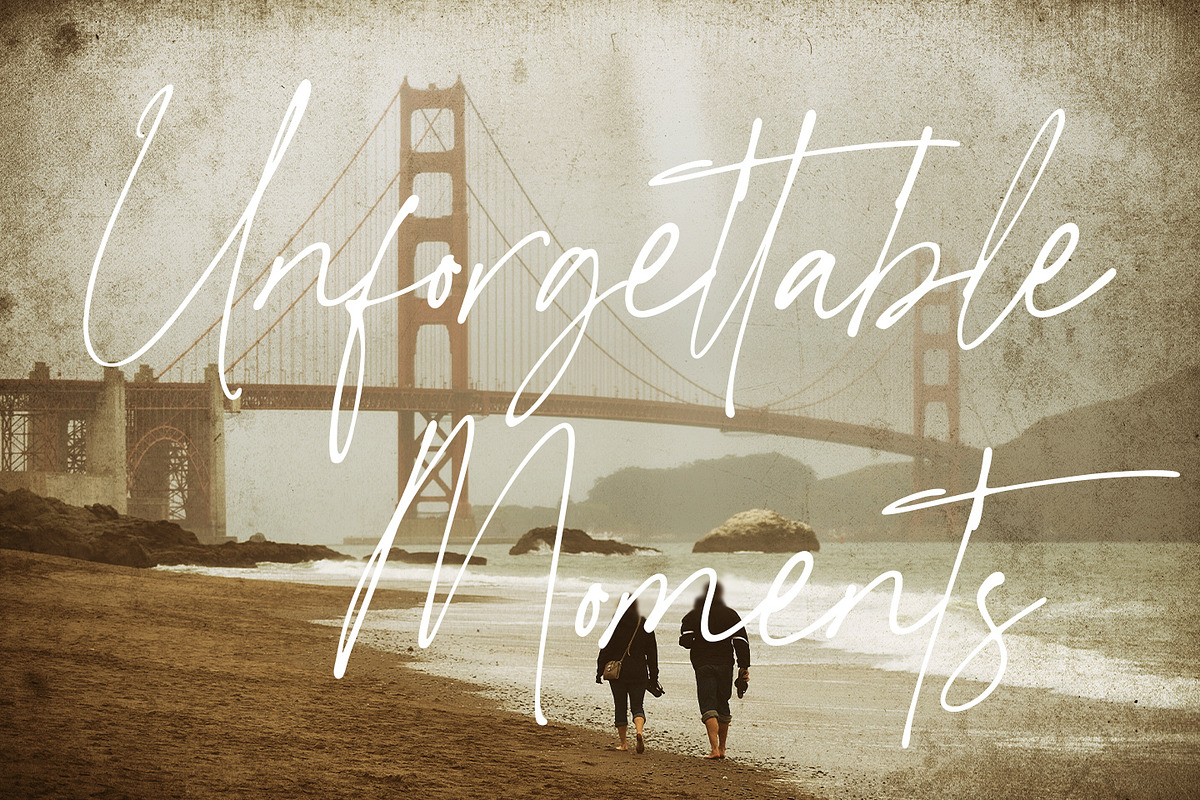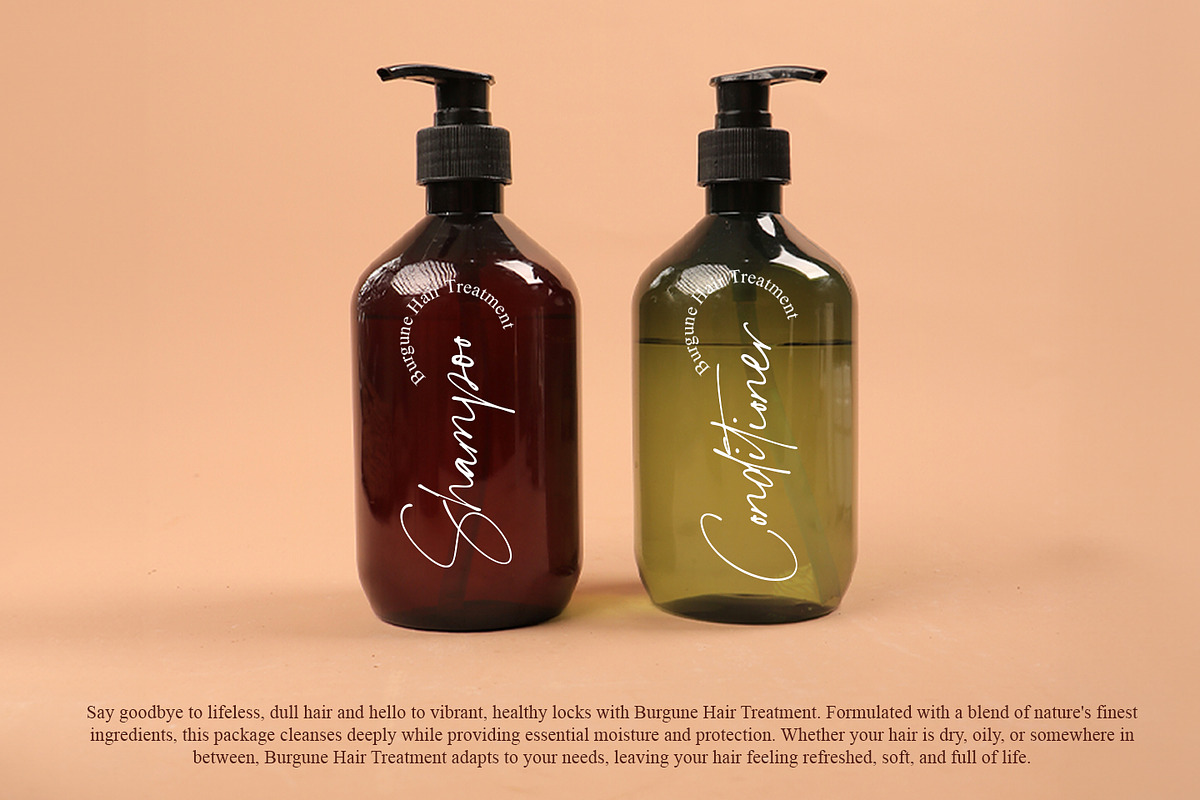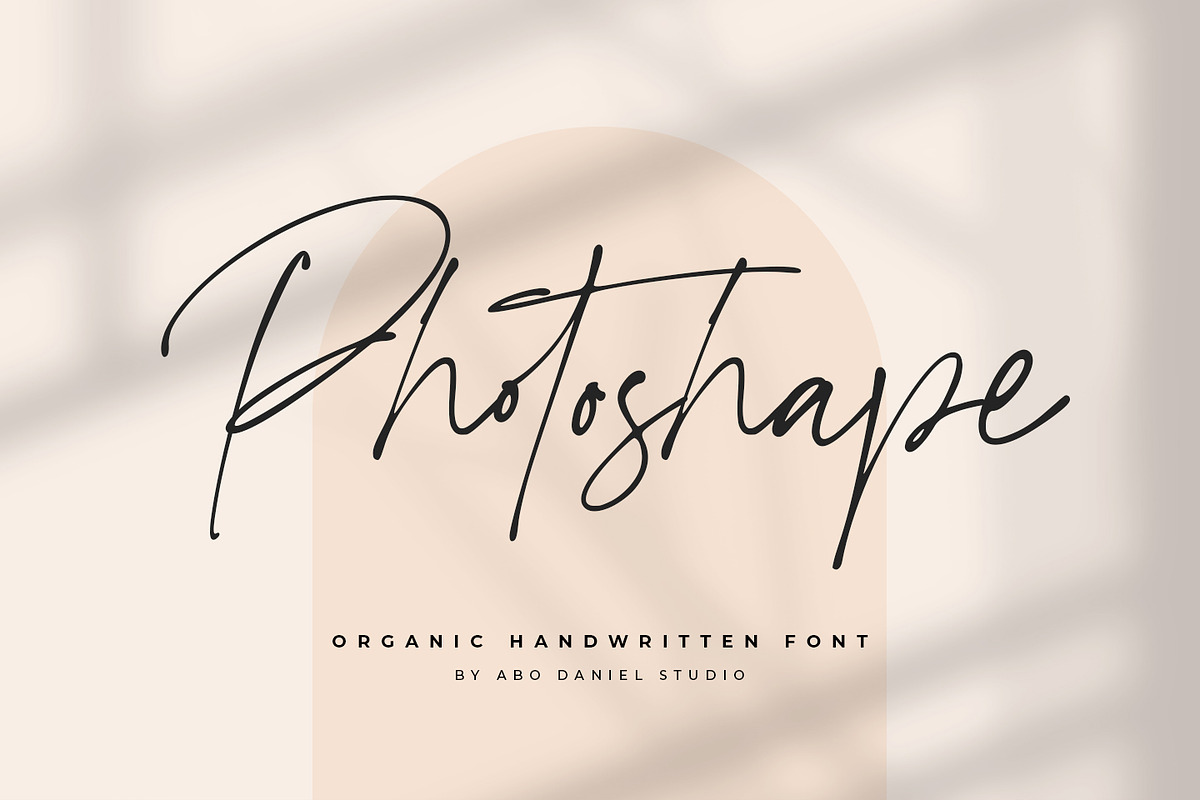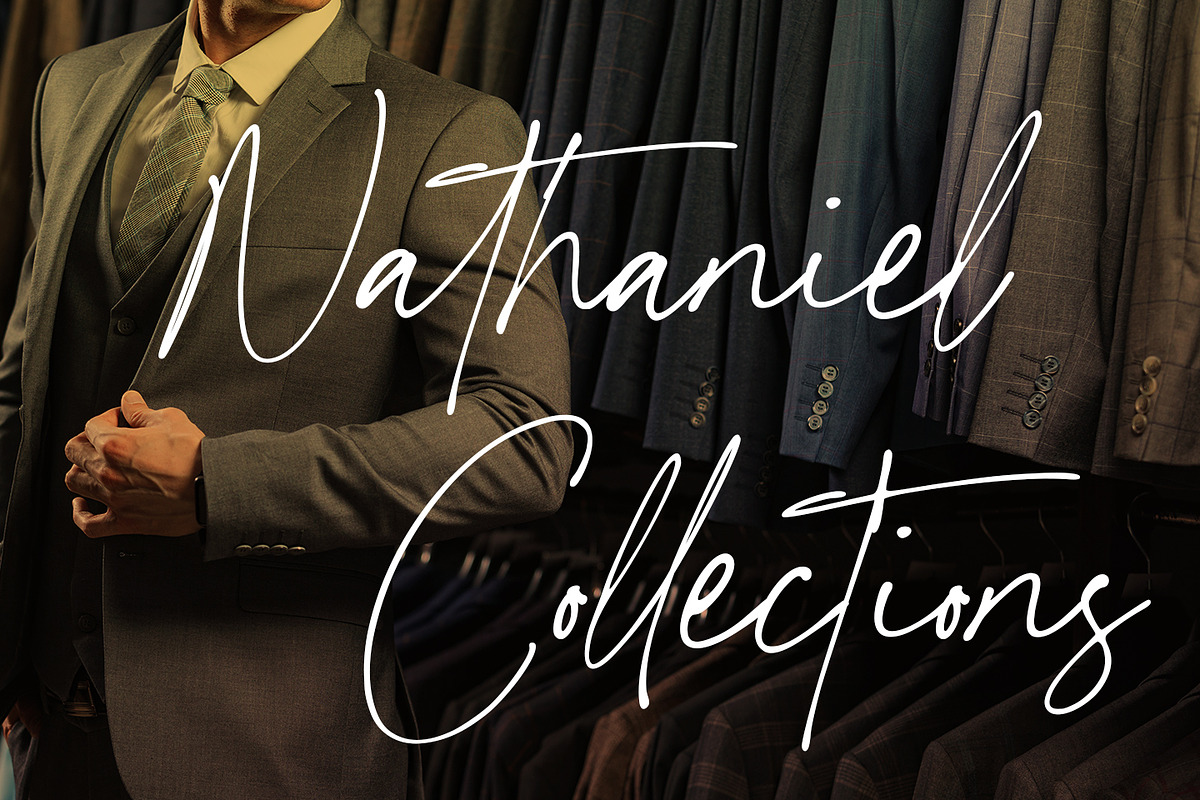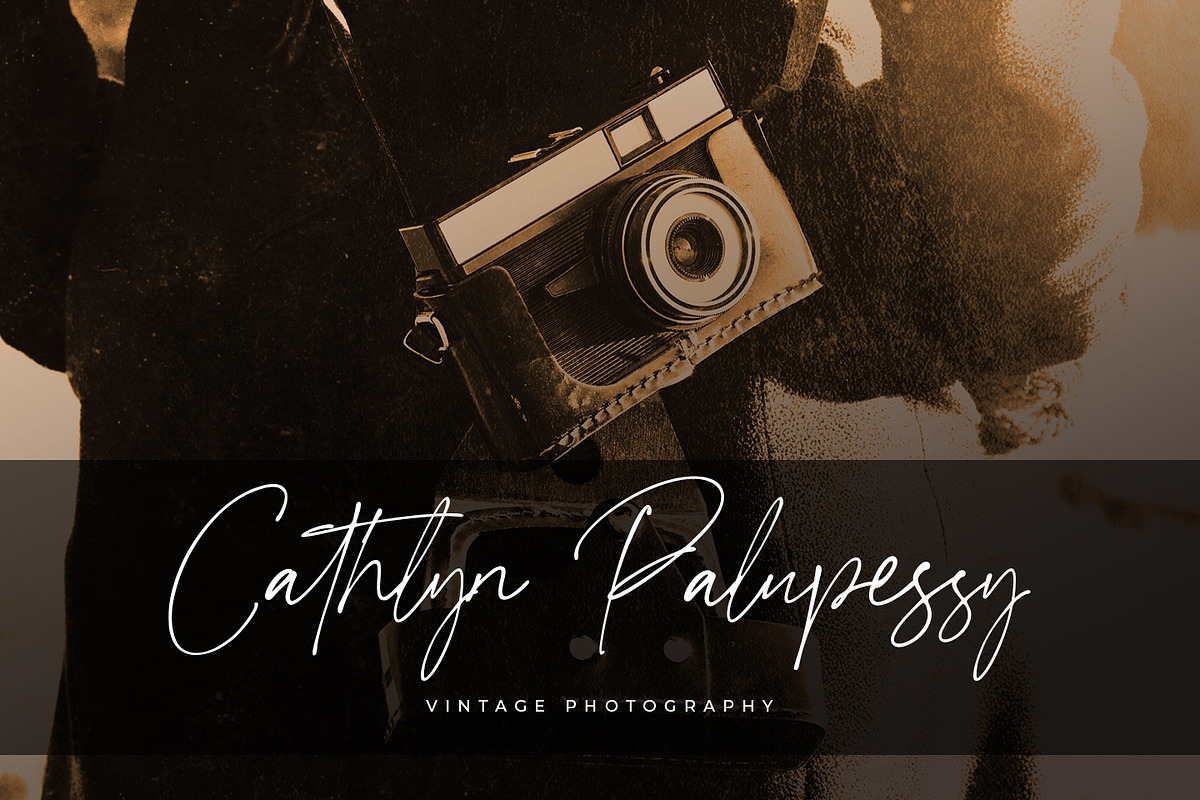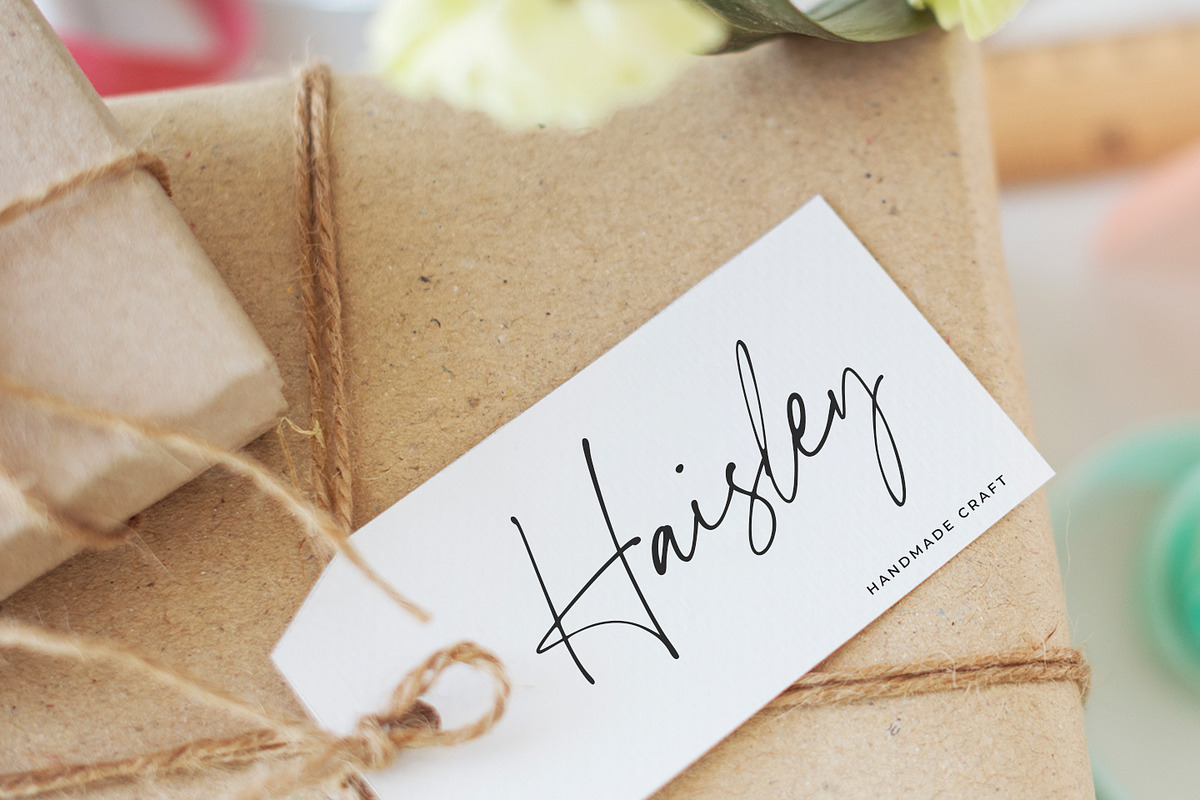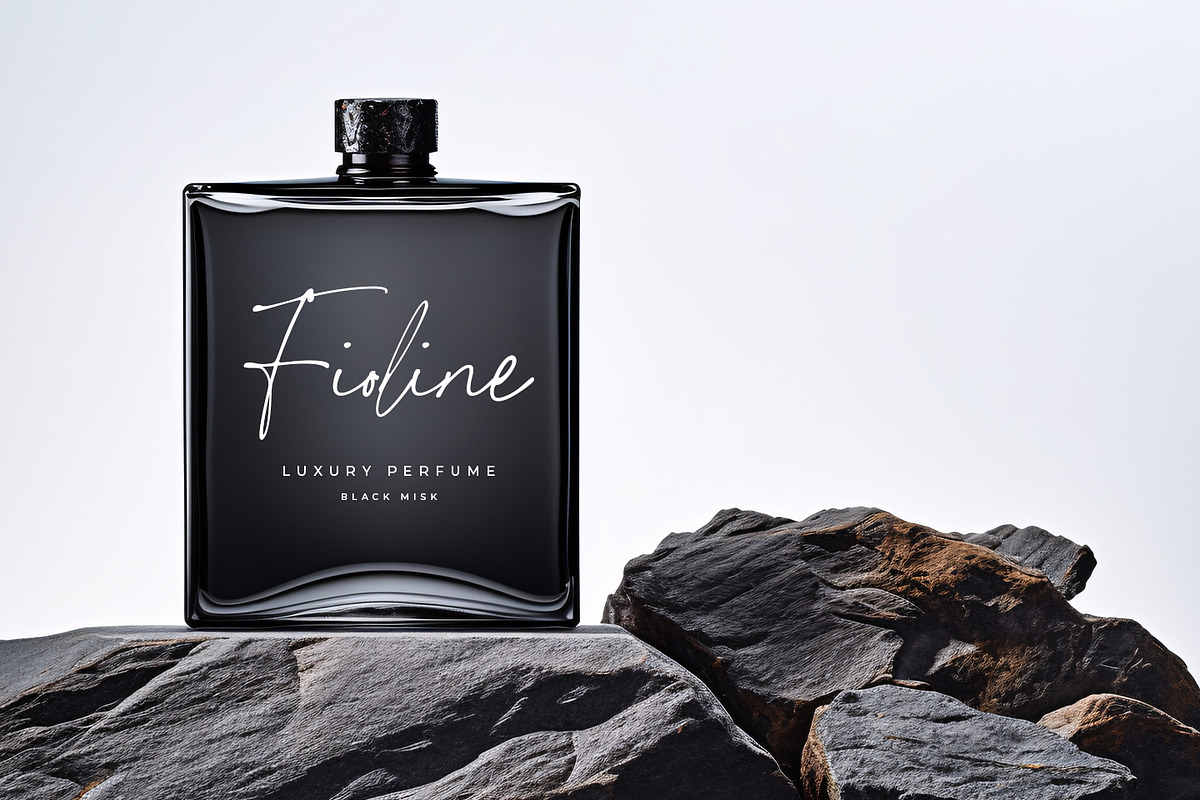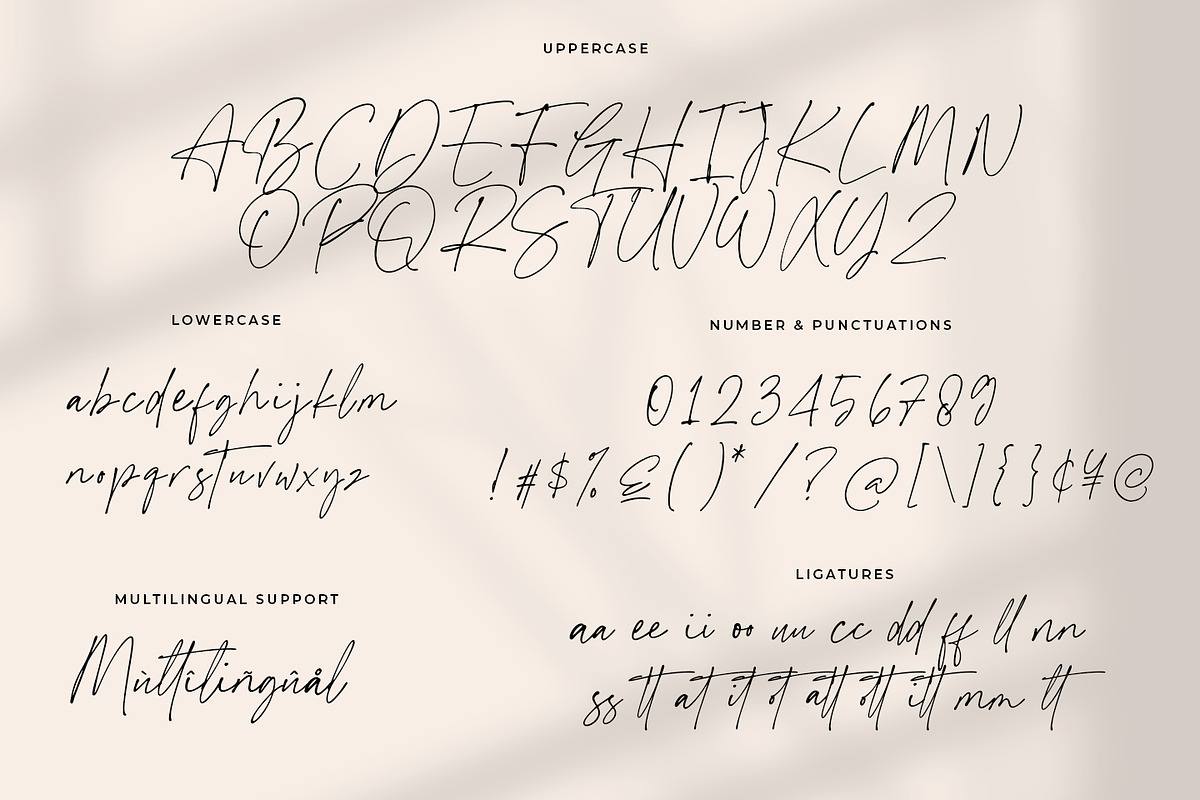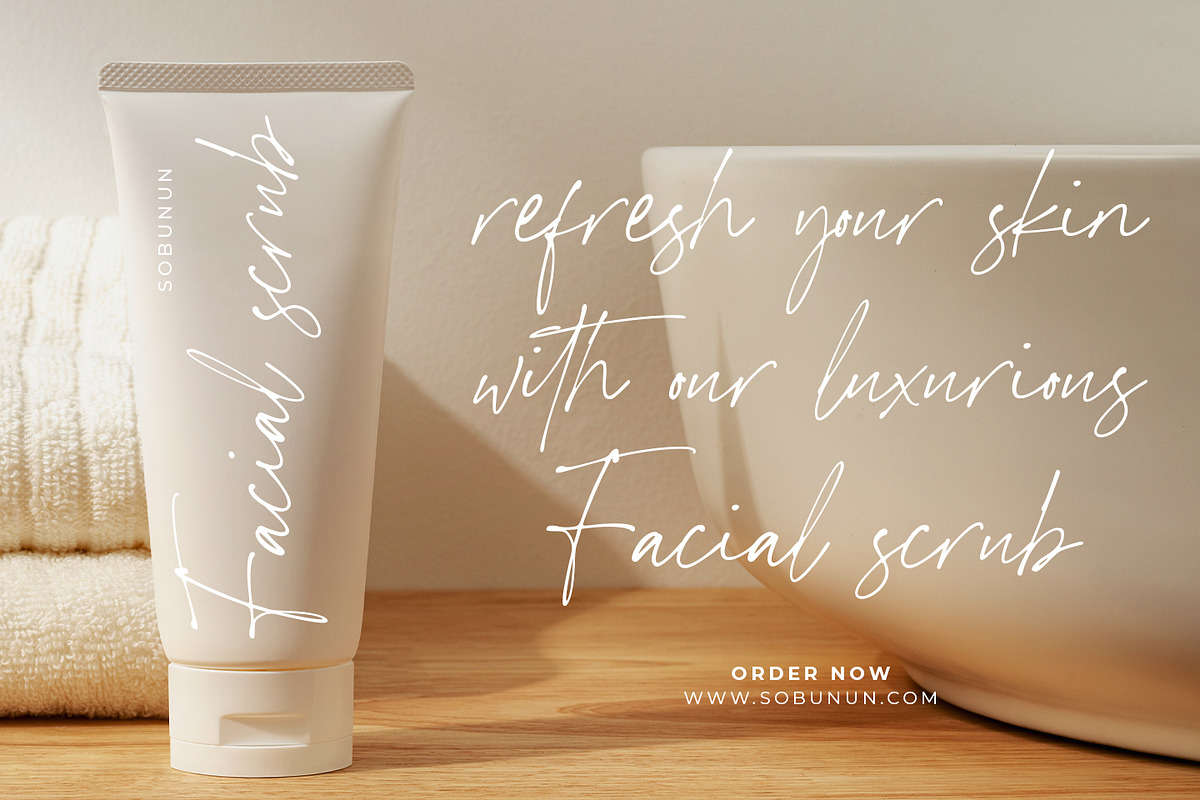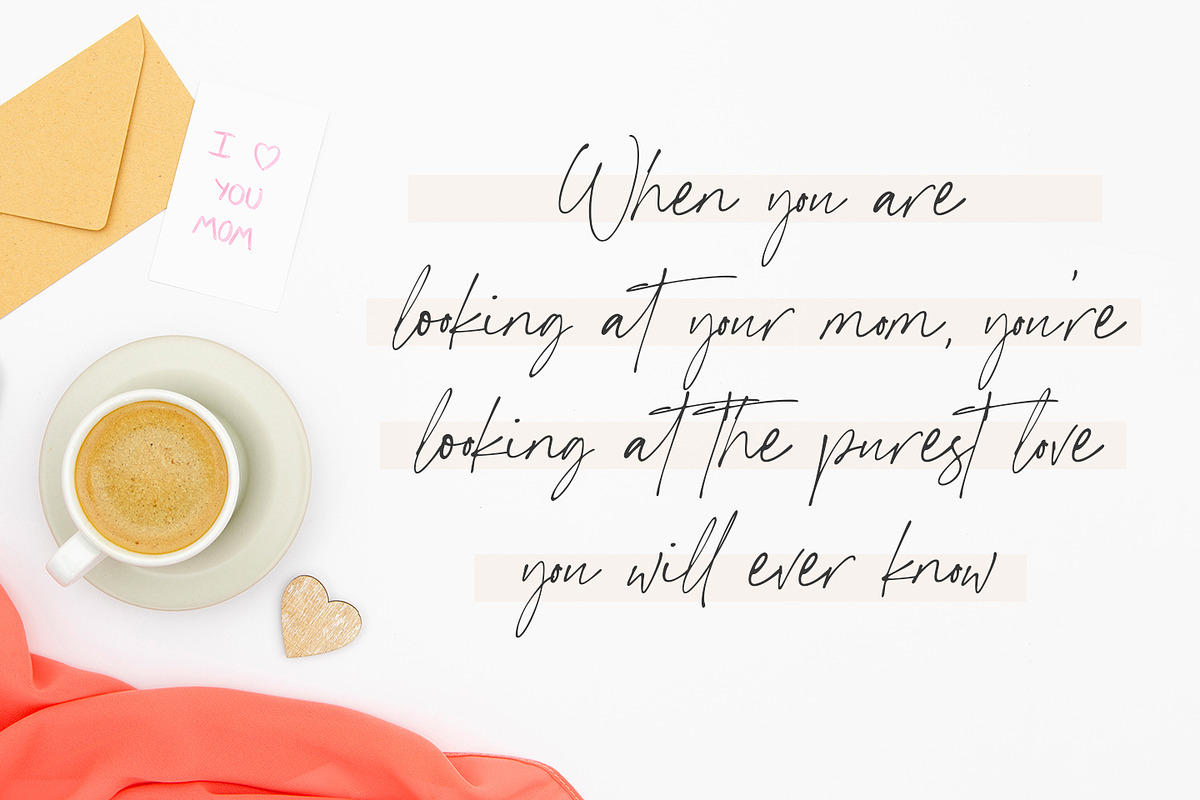
Photoshape
introducing
PHOTOSHAPE - organic handwritten font-
PhotoShape is a unique organic handwritten font that captures the essence of natural, free-flowing handwriting with a personalized touch. The font features smooth, curving letterforms that appear as if they were carefully written by hand, making it perfect for projects that require a casual yet artistic flair. Each letter seems to have its own character, creating an effortless, authentic vibe, while maintaining clarity and readability.
- Numeral